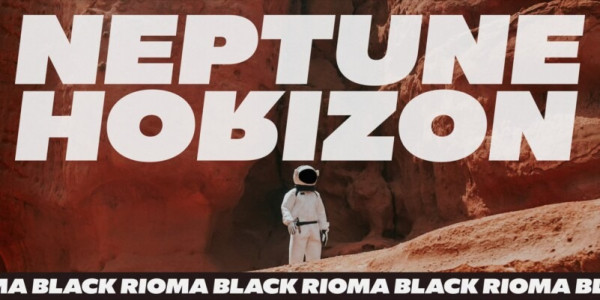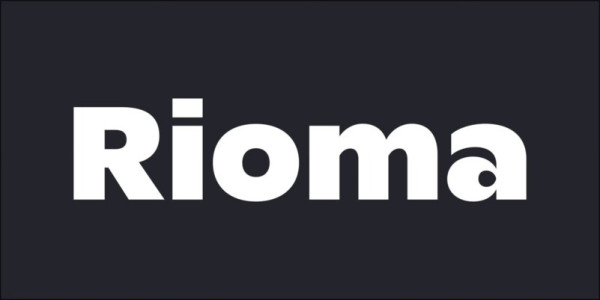
Rioma Font is a sans-serif font family with is geometric structure and 16 styles, helps you create many alternatives in your creative projects. Those weights run from Light to Heavy. While the static-format fonts offer a good intermediary-step selection, users who install the two Variable Fonst have vastly greater control over their text’s stroke width.
The weight axes in Rioma’s Variable Fonts allow users to differentiate between almost 1,000 possible font weights. That enables you to fine-tune your text’s exact appearance on-screen or in print. Rioma is an excellent choice for both corporate design and editorial design projects because of its range of weights as well as its legibility in text. Around the typeface’s regular weight, character shapes feature optimized proportions and an improved balance that is perfect for use in text.
The bolder weights have a strong character, with a unique style and smooth shape that is well suited for any display use. The heaviest looks contemporary and classic at the same time. When you have a strong message, it will help create an identity-setting mark.